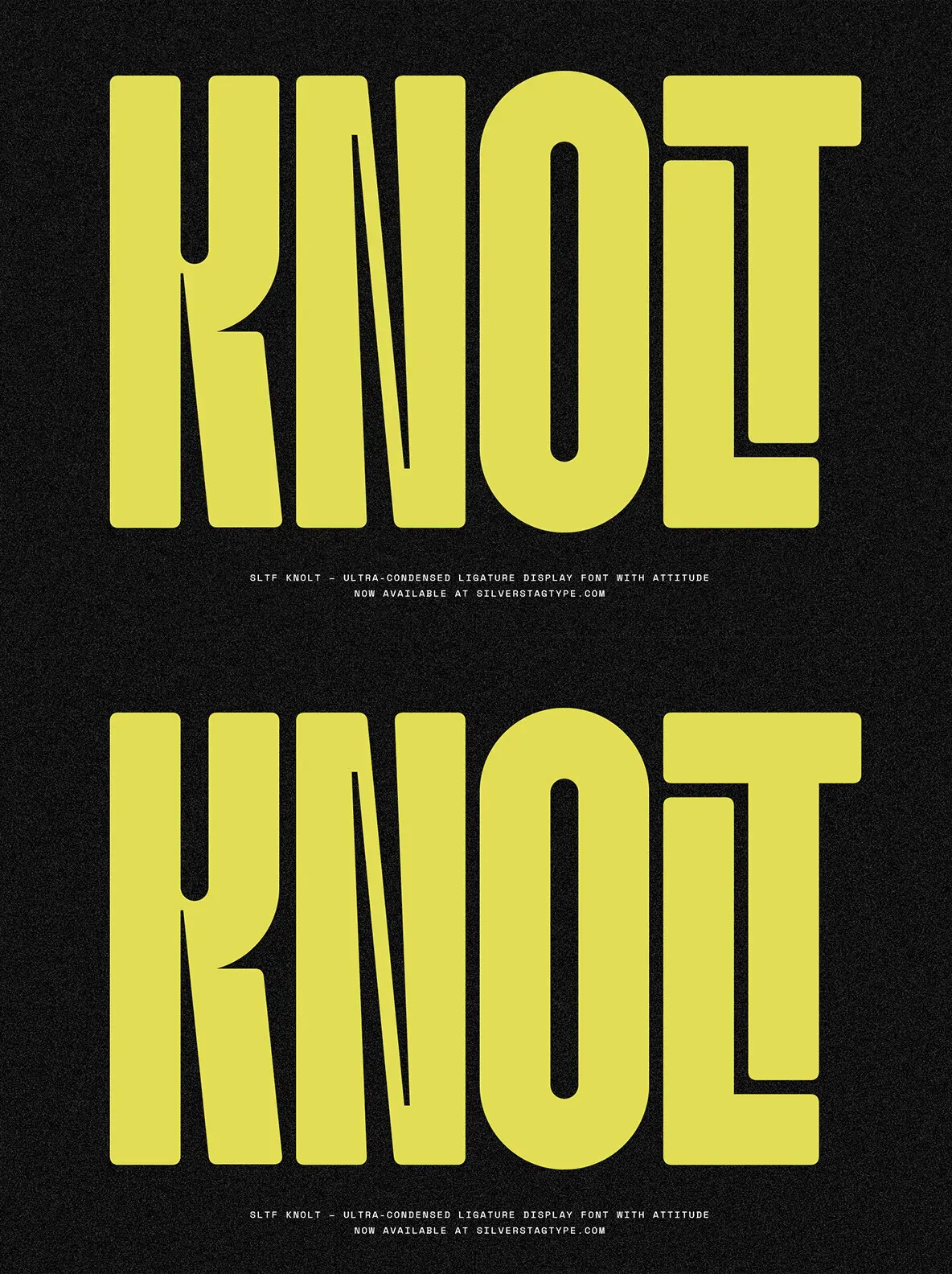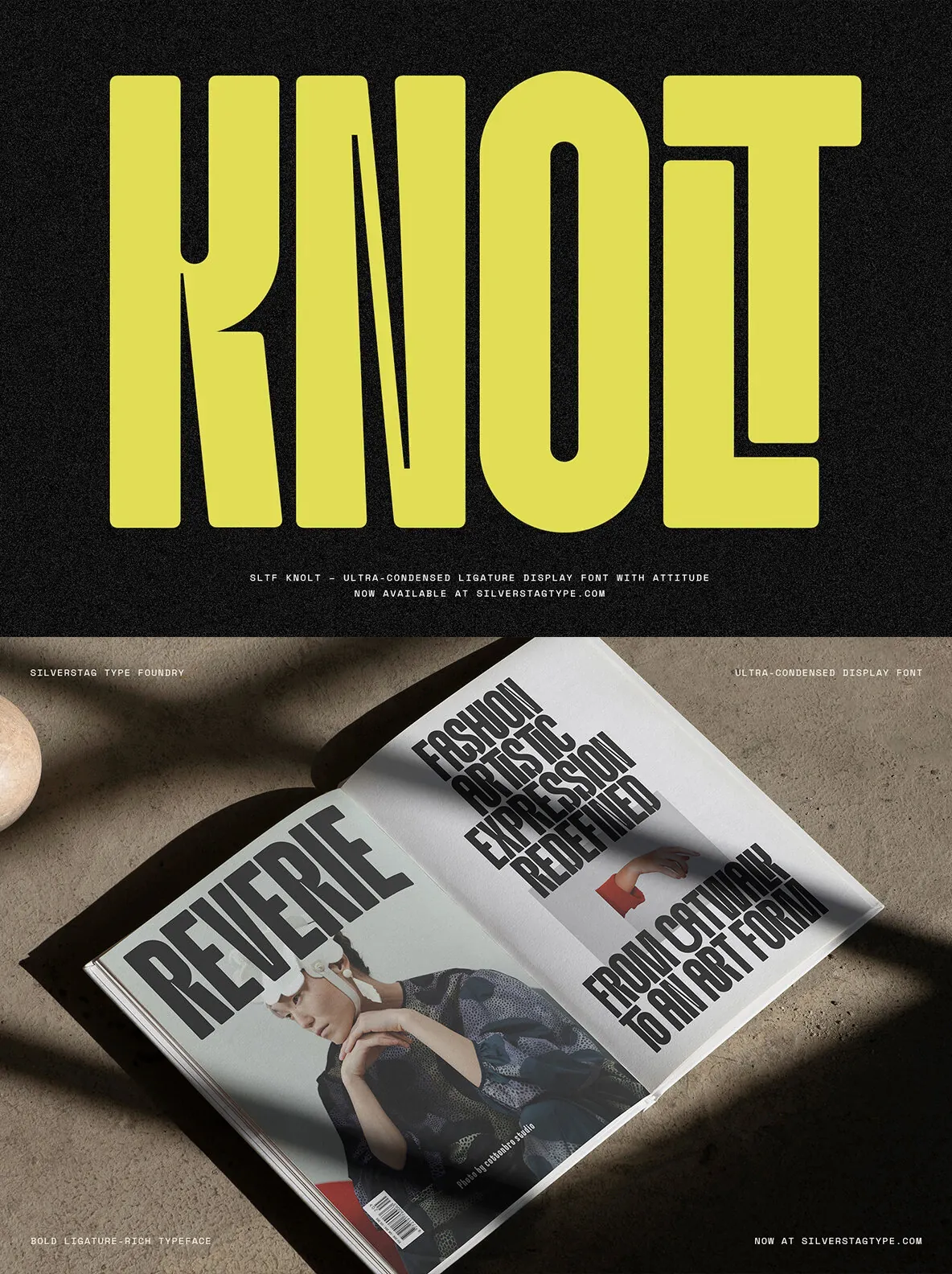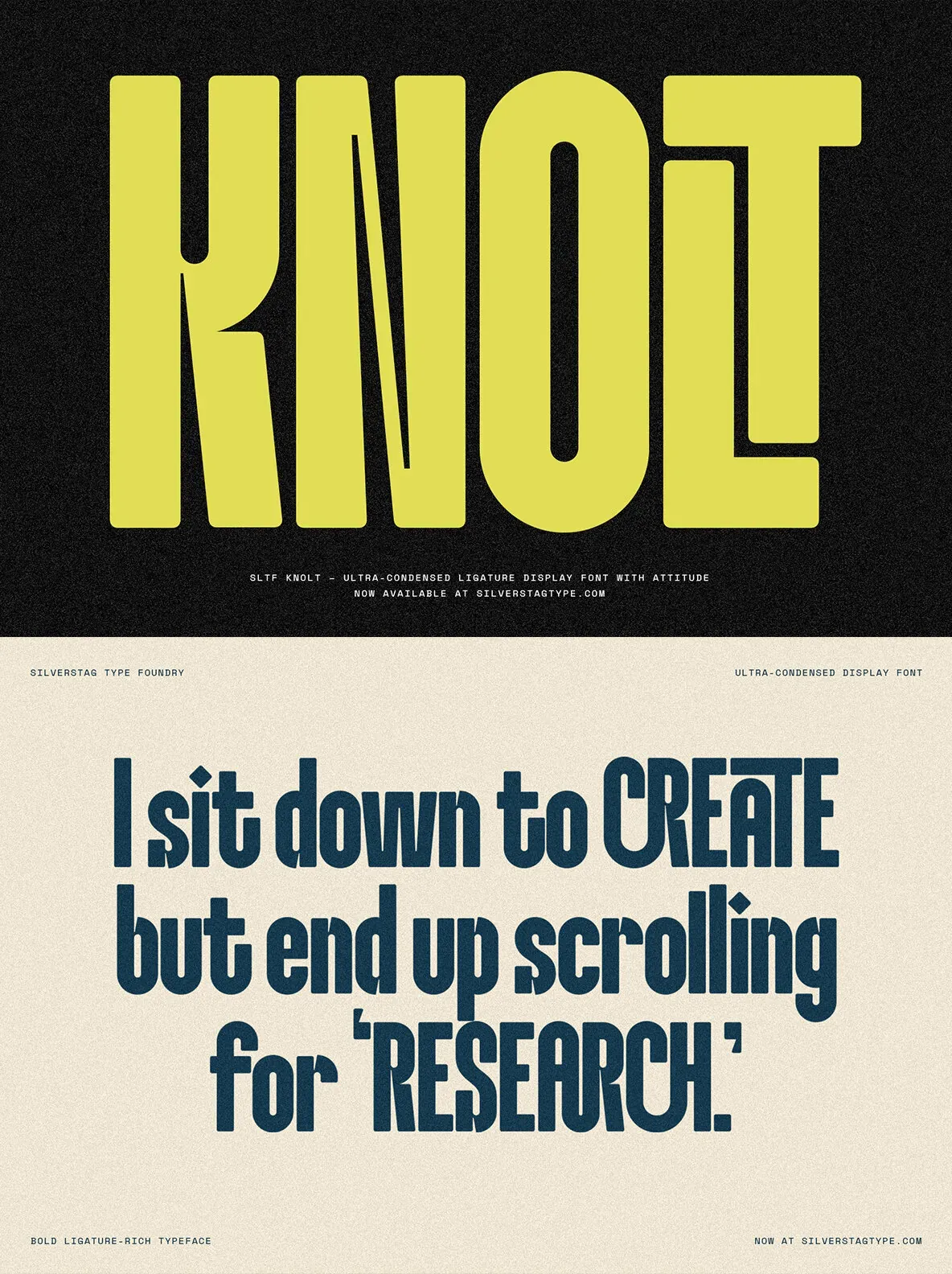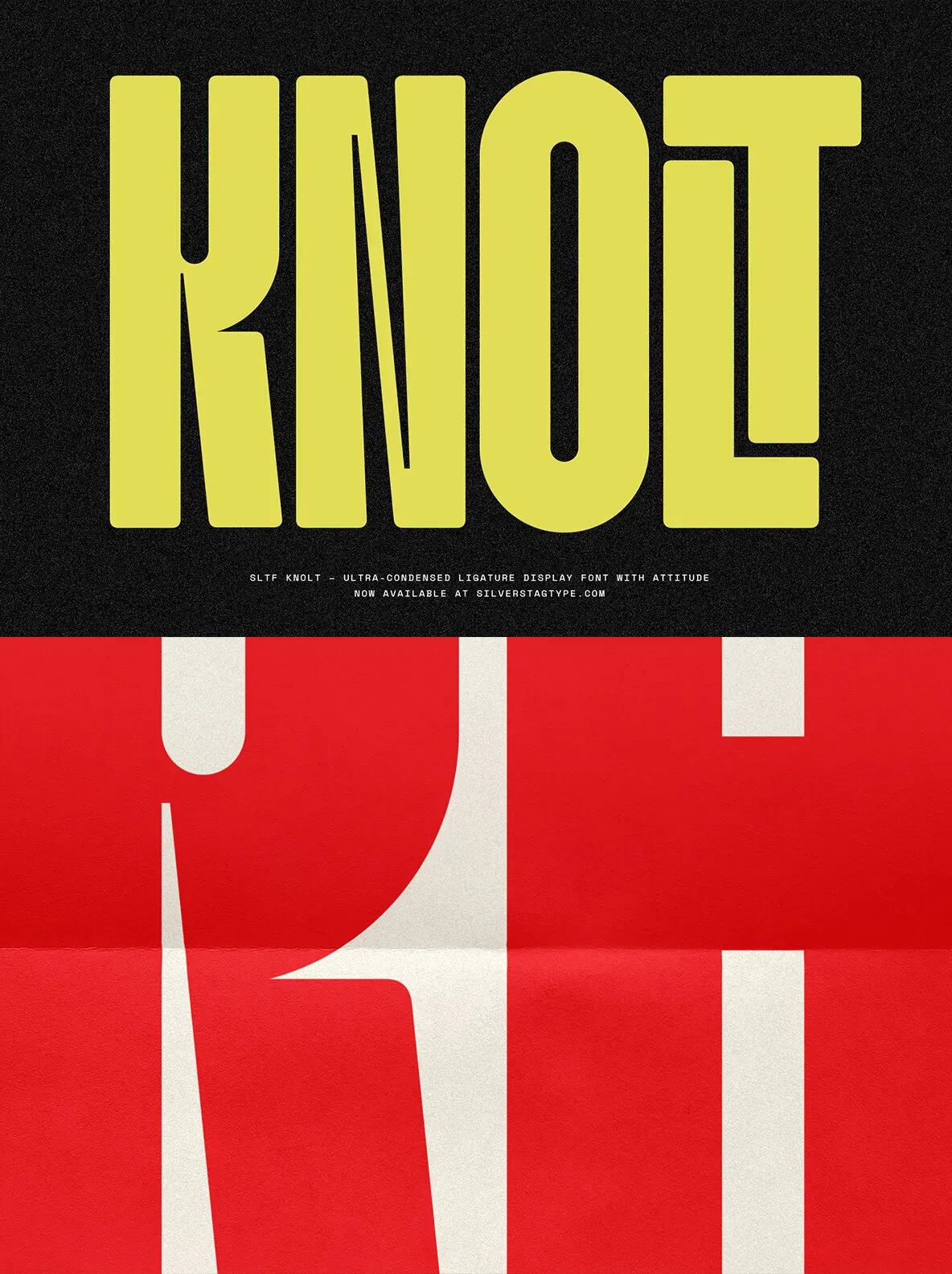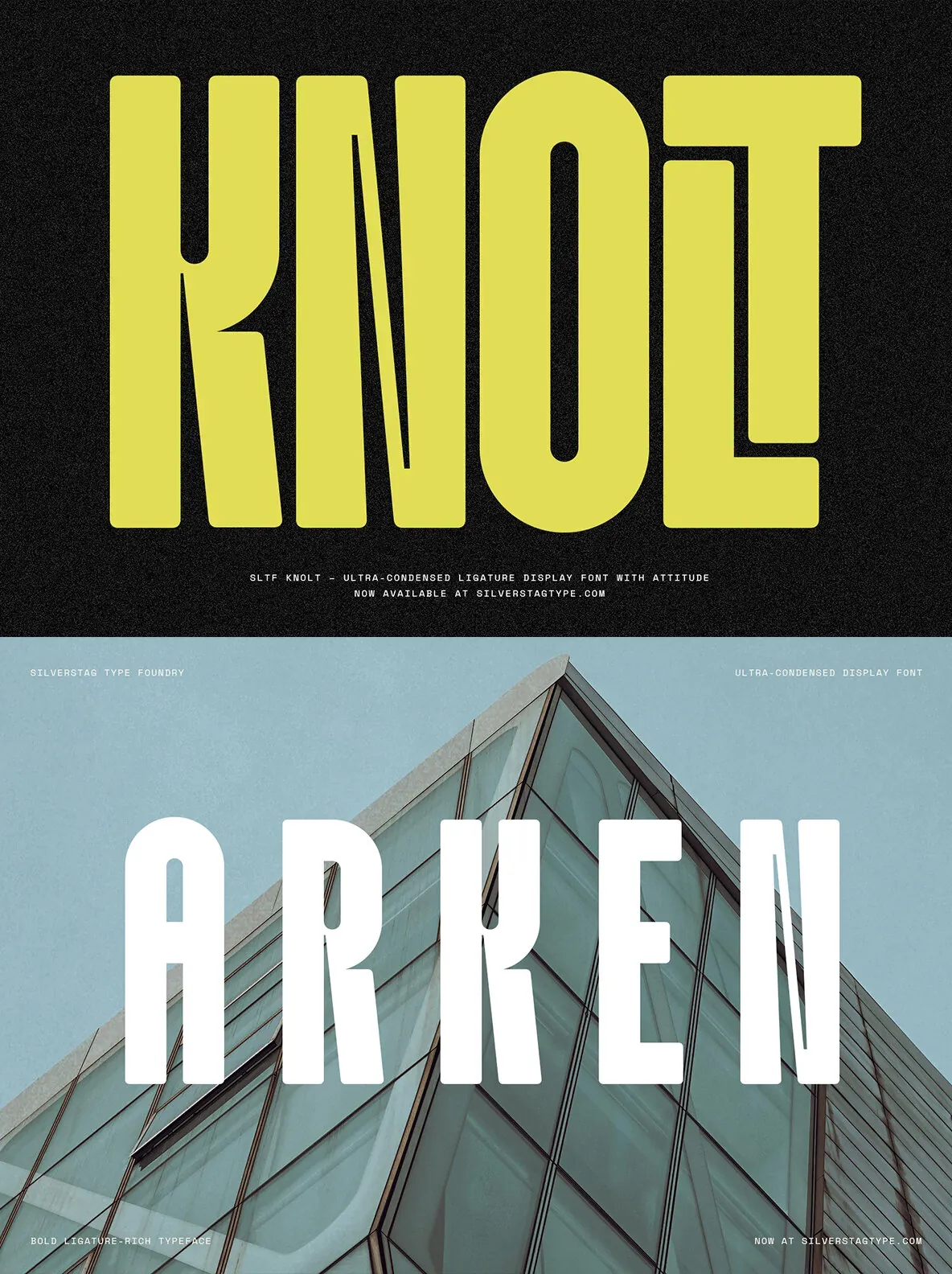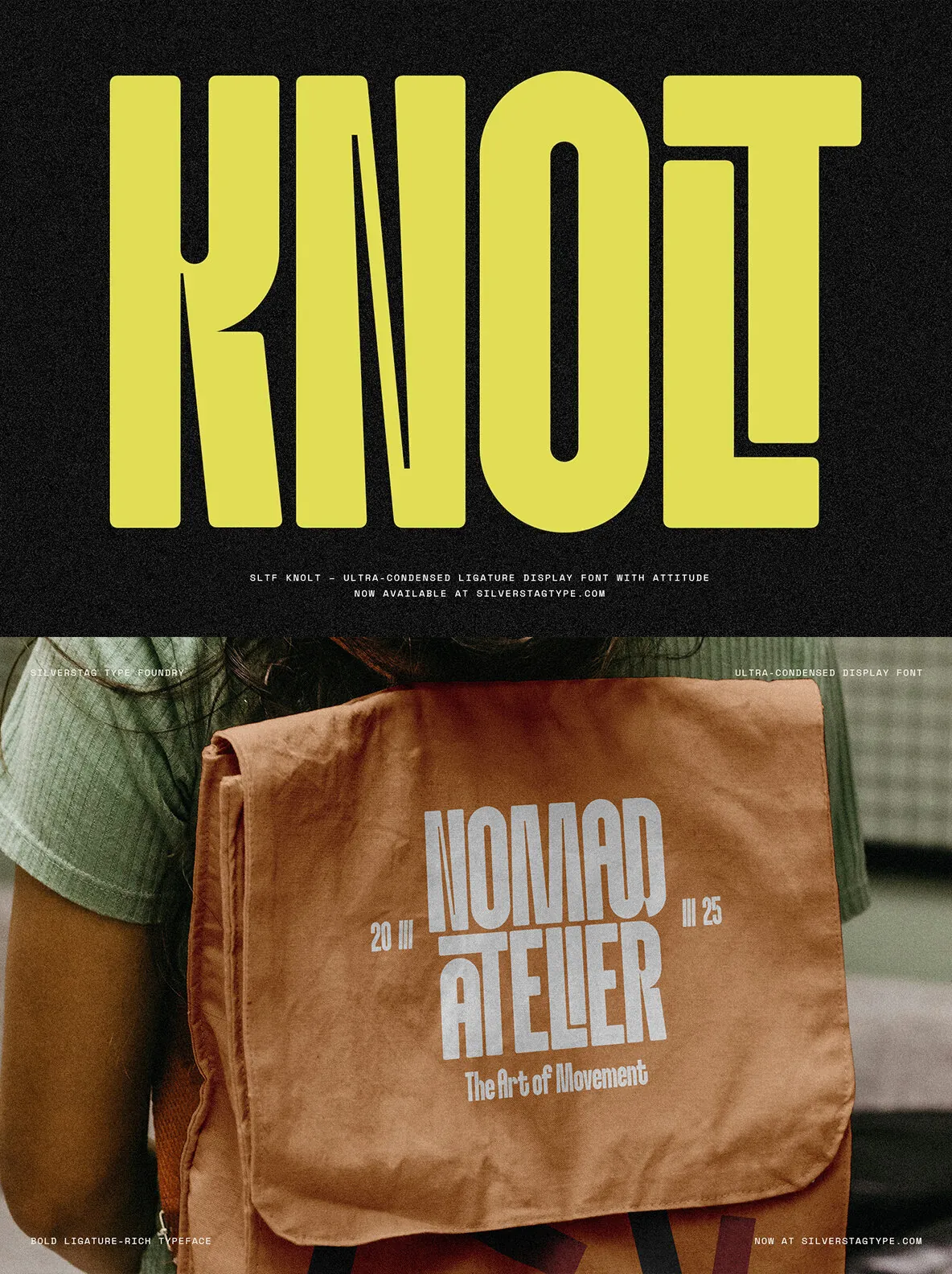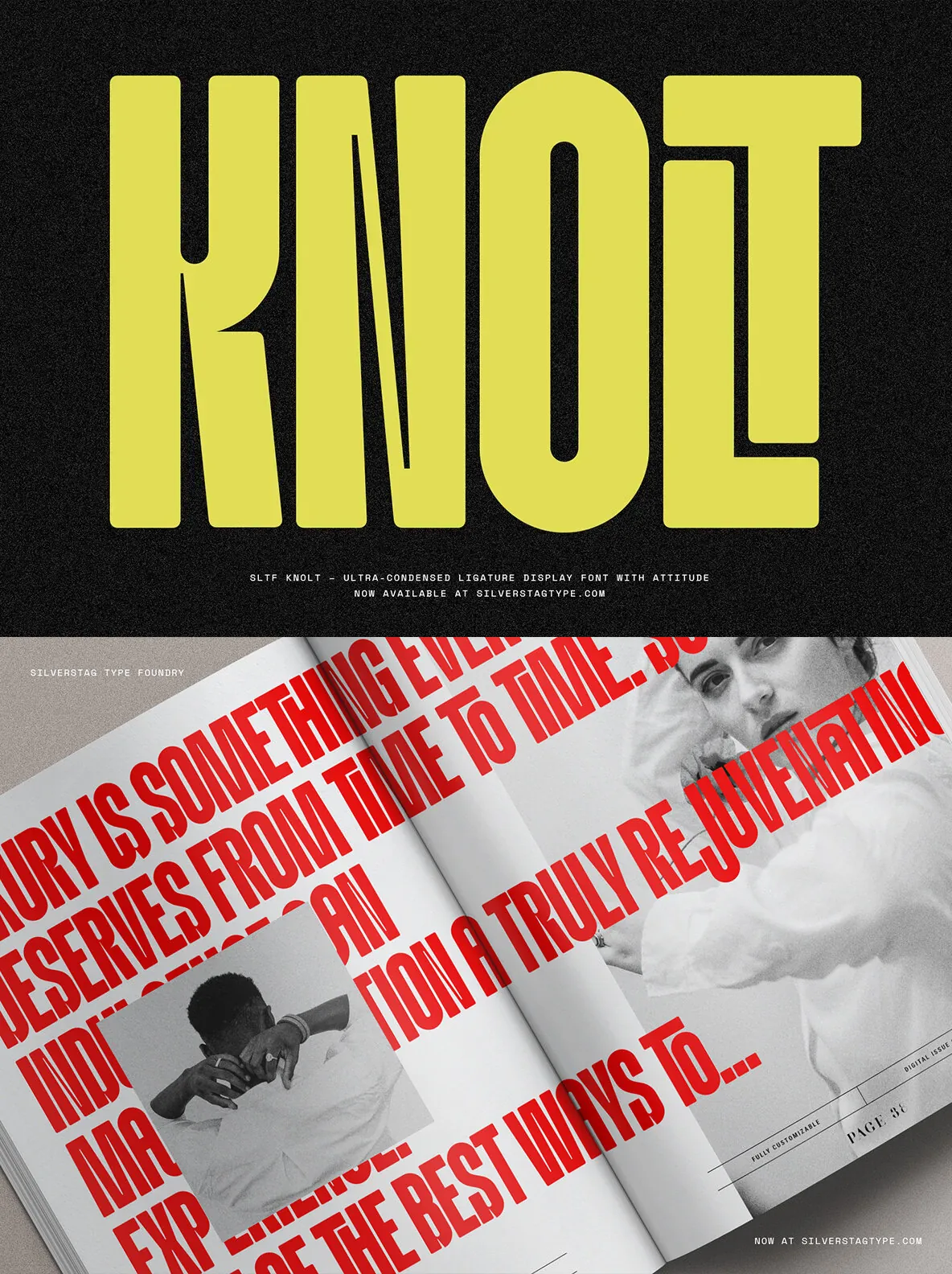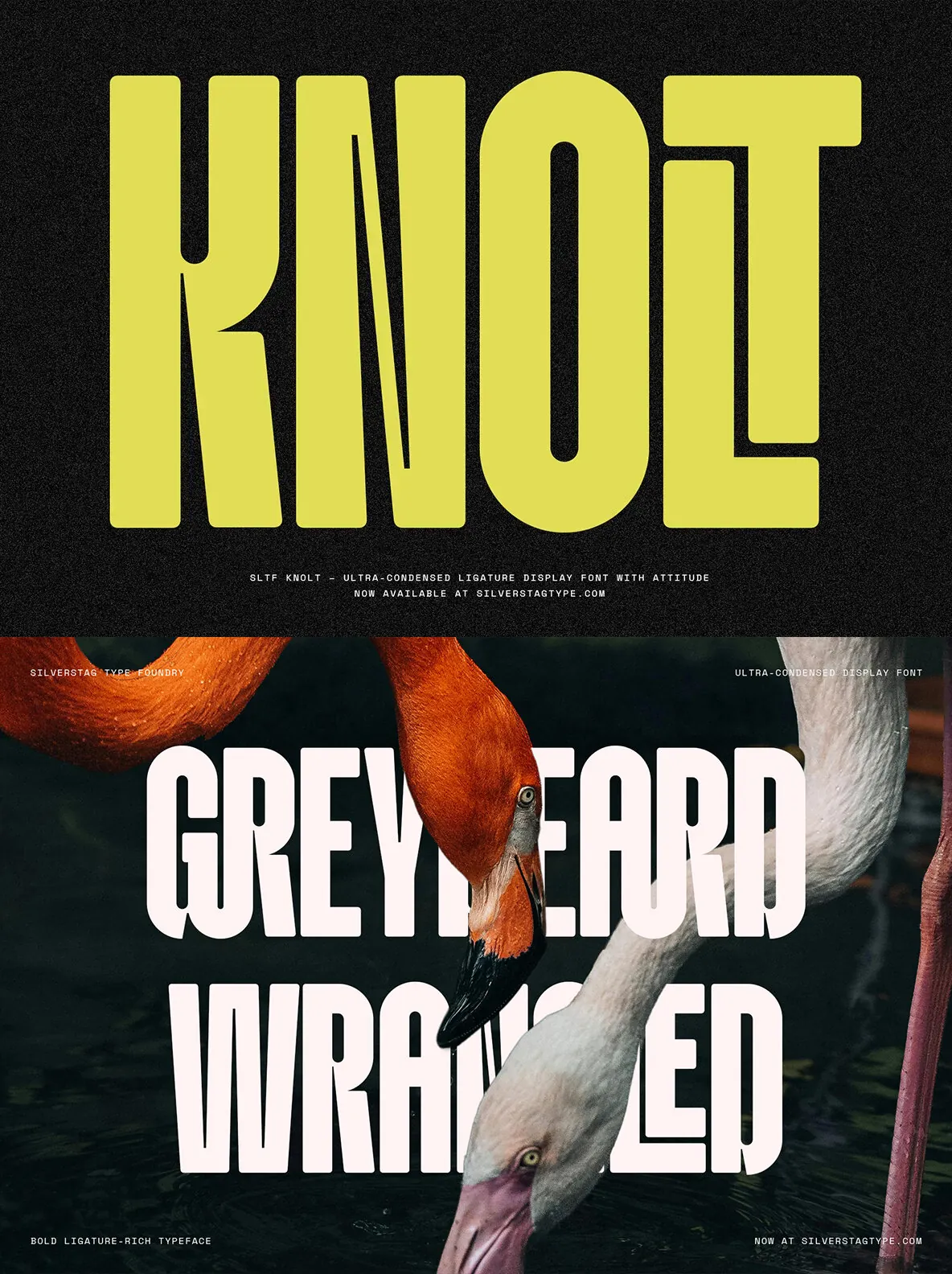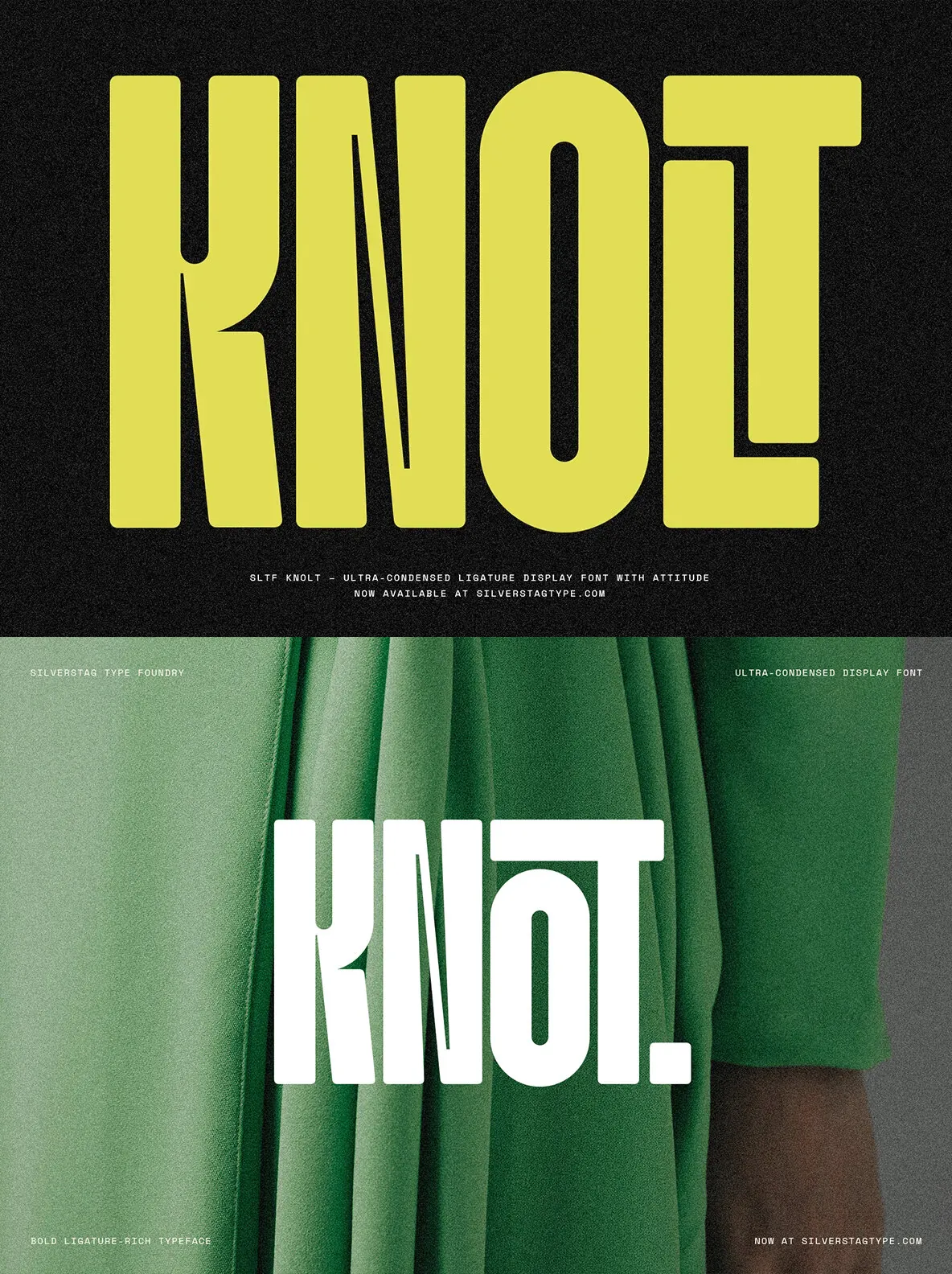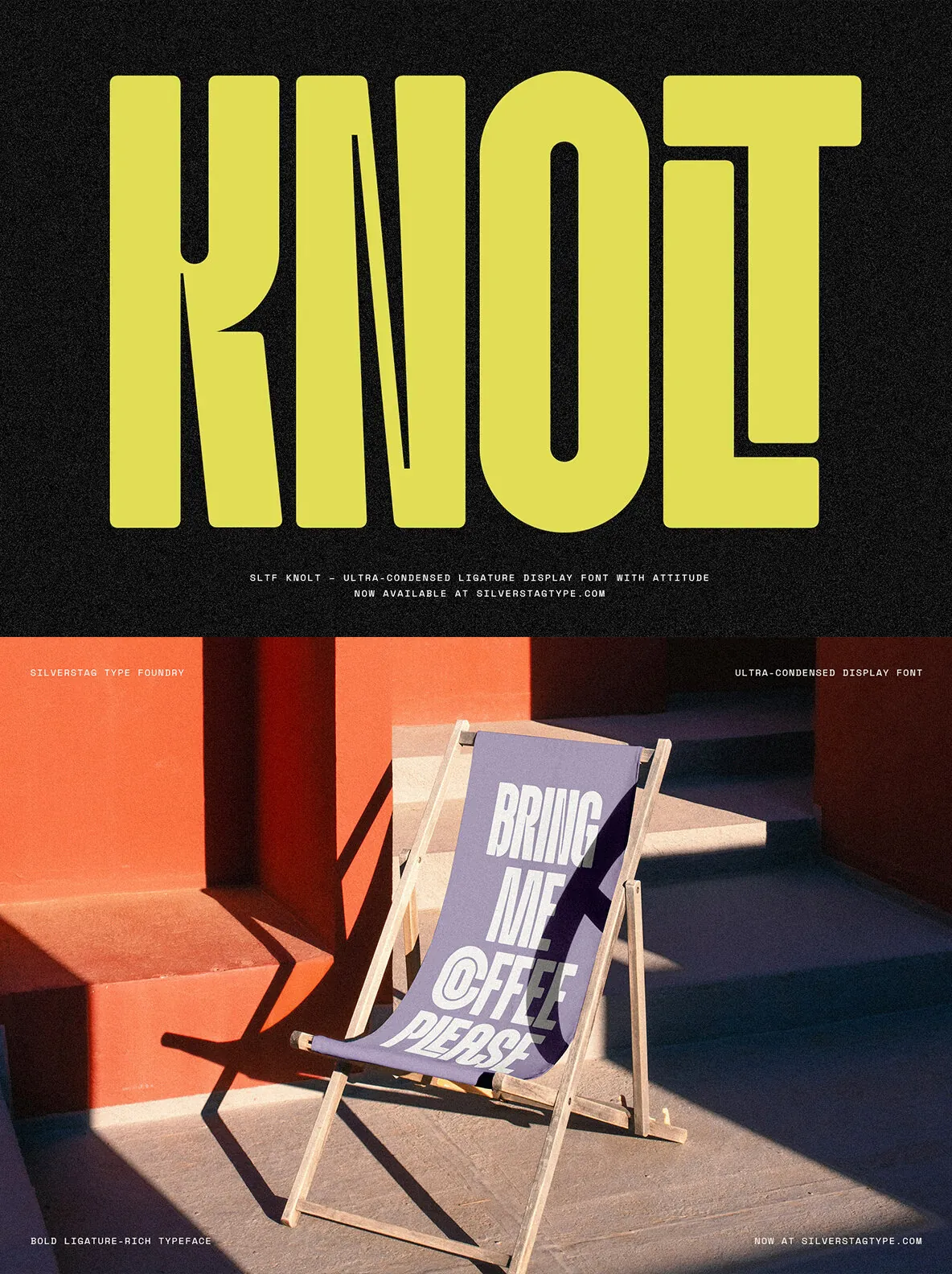
SLTF Knolt Font
SLTF Knolt — Condensed, Sharp, and Loud
Meet SLTF Knolt, a sleek, sharply styled ultra-condensed font made for standout display work. Its dramatic verticality, high-contrast strokes, and edgy ink traps bring bold energy to typographic systems that need a strong focal point. Use it for high-fashion headlines, striking packaging, and editorial layouts where presence matters and space runs tight.
Every curve, corner, and ligature in Knolt has been carefully refined to keep a tight rhythm and a clean, impactful look—especially at large sizes. The ultra-condensed letterforms help you set space-saving typography without losing readability or flair. A curated selection of over 100 ligatures gives designers room for stylish, unexpected combinations in modern branding and display typography.
Knolt works beautifully in bold logos, contemporary posters, album art, and lifestyle-driven branding across digital and print. It includes a full uppercase and lowercase set, punctuation, multilingual support for 90+ languages, and comes in both desktop and webfont formats.